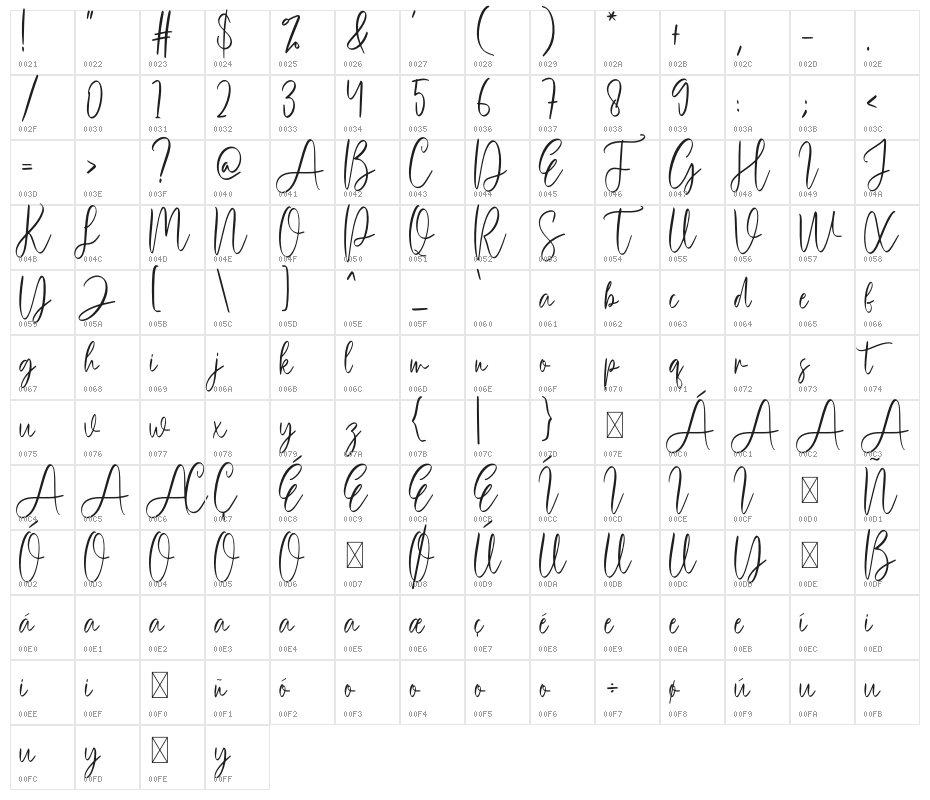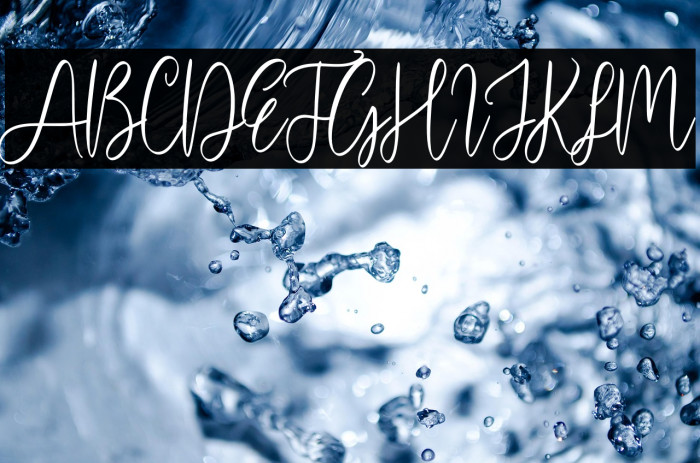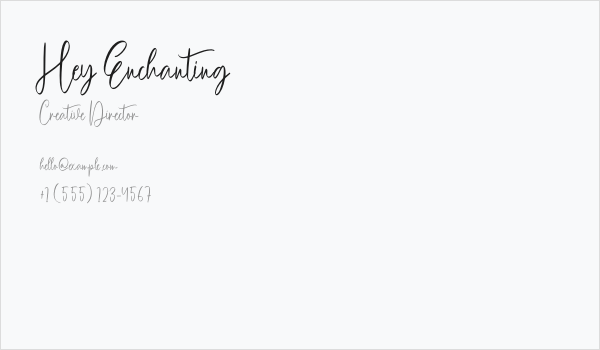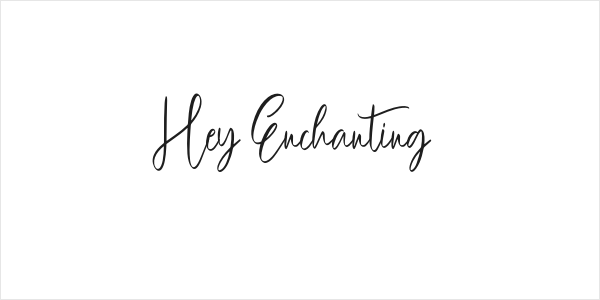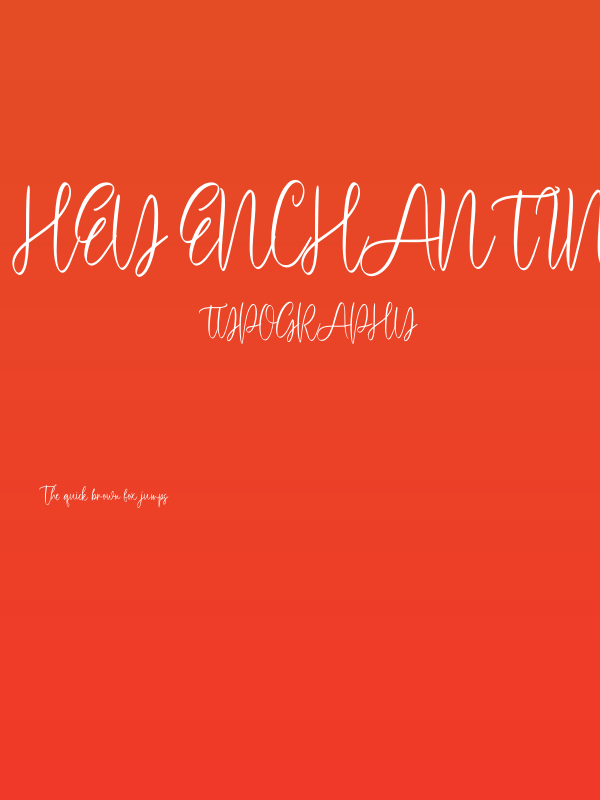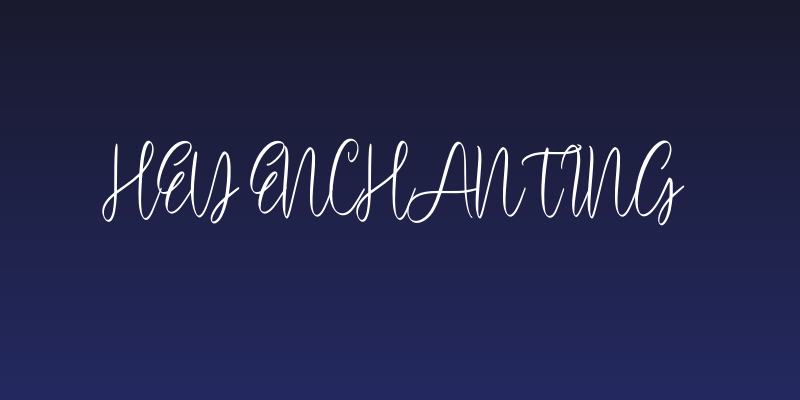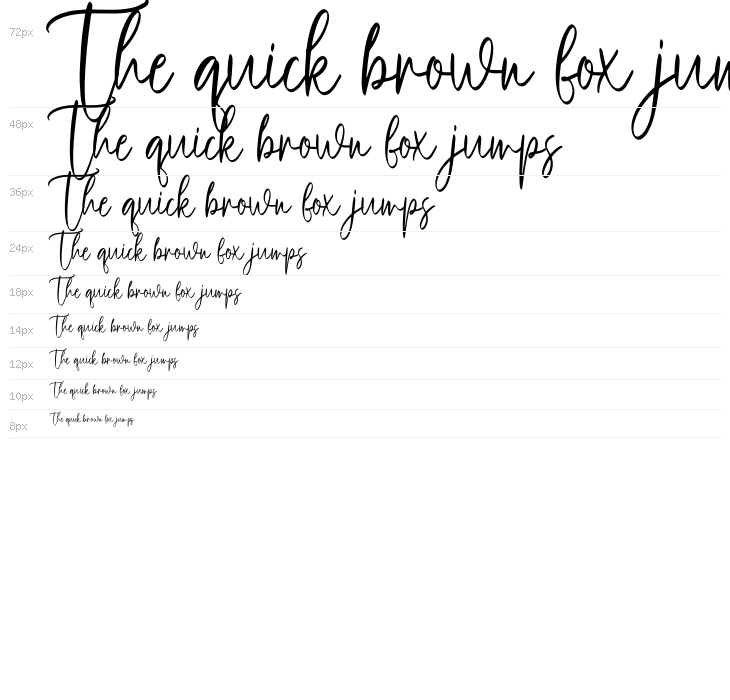
Hey Enchanting Font
Hey Enchanting Description
A playful and flowing handwritten script font with a casual and whimsical style, featuring connected letters and varying stroke widths.
| Overall Style | Casual, Whimsical |
| Use Case | Logos, Invitations, Greeting cards |
| Proposed Projects | Invitations, greeting cards, personal branding. |